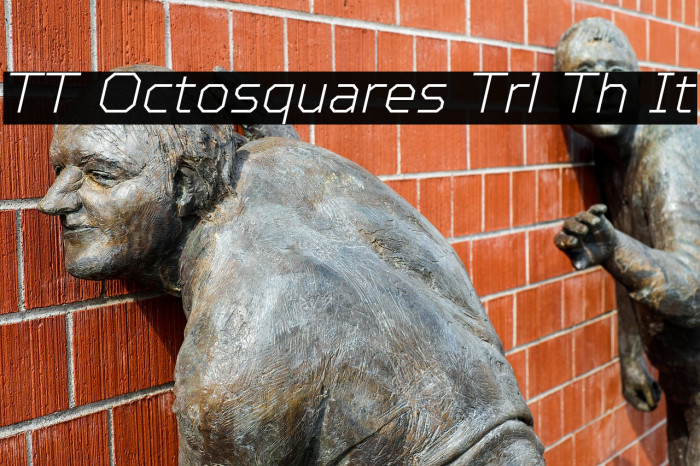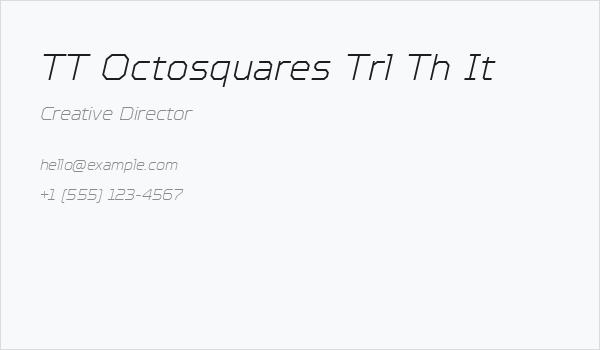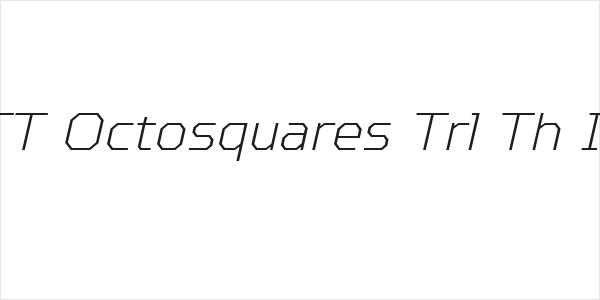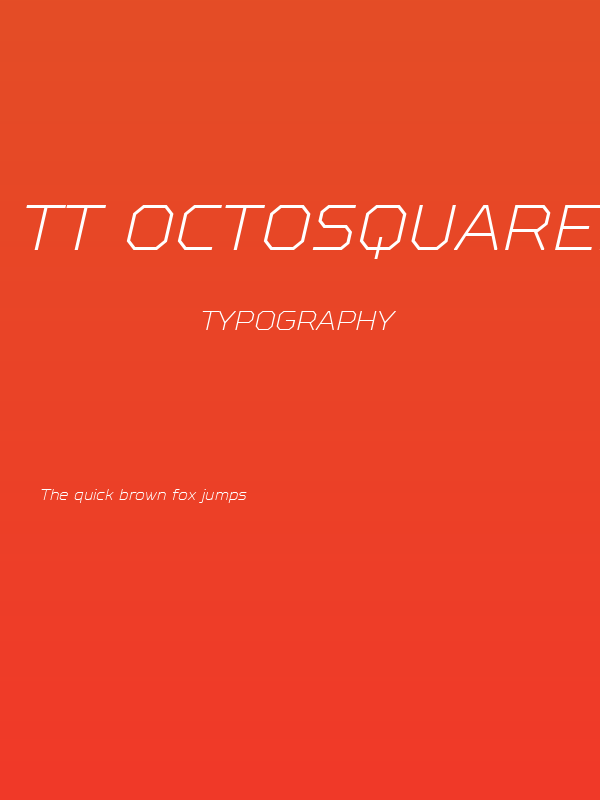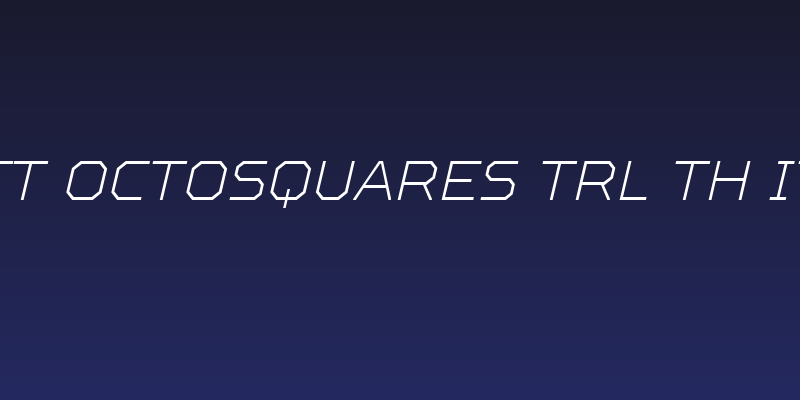
TT Octosquares Trl Th It Font
TT Octosquares Trl Th It Description
This font features a geometric and angular design, characterized by its octagonal shapes and clean lines. The letters are slightly slanted, giving it a dynamic and modern appearance. The uppercase and lowercase characters maintain a consistent style, with sharp edges and a uniform stroke width. Numbers and special characters follow the same design principles, ensuring a cohesive look across all glyphs. The font's unique structure makes it stand out, offering a futuristic and technical feel that is both stylish and functional.
| Use Case | Logos, Headlines, Digital interfaces |
| Proposed Projects | Ideal for tech branding, modern posters, digital interfaces, and futuristic designs. |